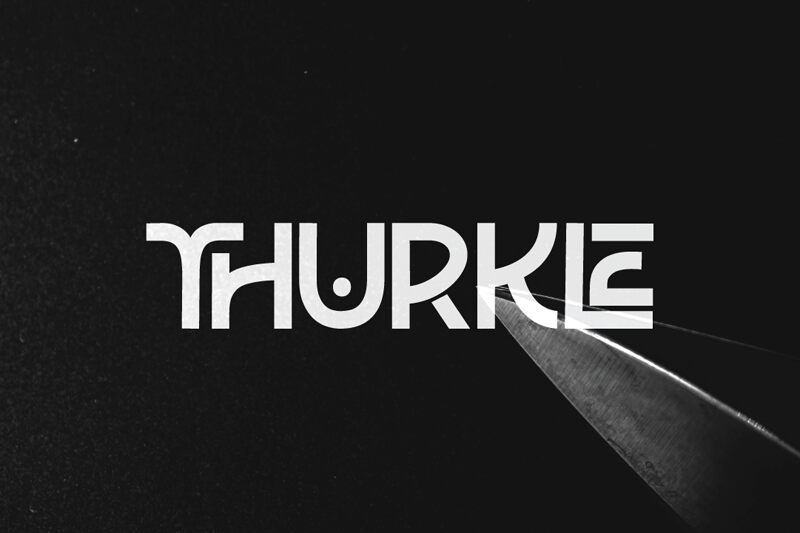
Introducing Thurkle, a visually striking and futuristic display font designed by jarnawi saja. With its semi-light weight, this font is perfect for projects that require a modern, sleek look with a touch of edginess. Whether you're designing a tech startup's logo, creating eye-catching posters for music festivals, or developing cutting-edge video game titles, Thurkle will help your designs stand out from the crowd. Its unique and bold letterforms are sure to capture attention and leave a lasting impression on viewers. So why settle for boring fonts when you can elevate your designs with Thurkle?
Thurkle